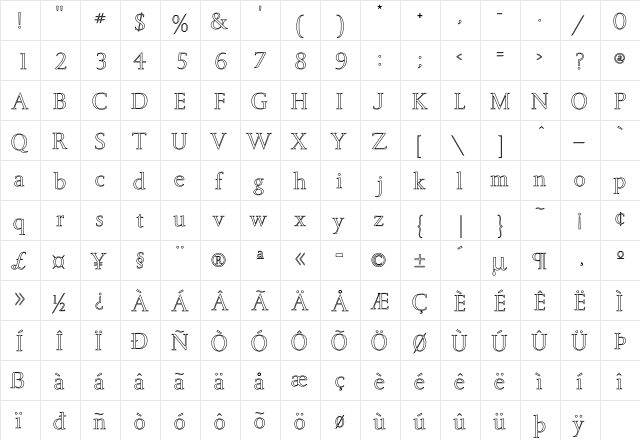
Senator Ho Regular
Design Context for Senator Ho Typeface
Senator Ho offers clean, dependable letterforms without strong stylistic allegiance, making it a practical choice for designers who need flexibility.